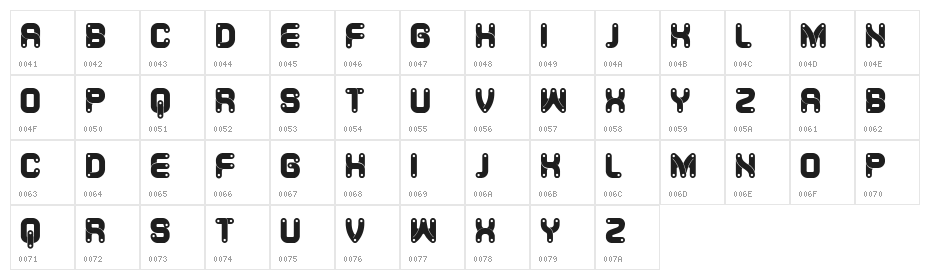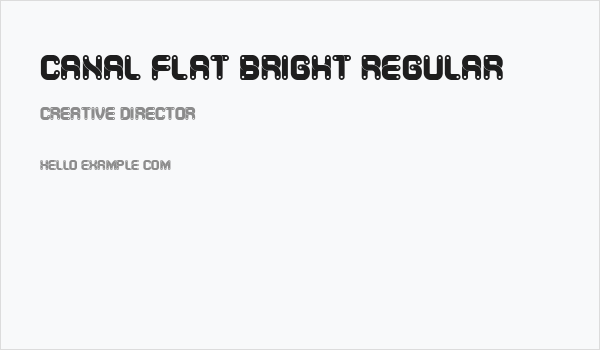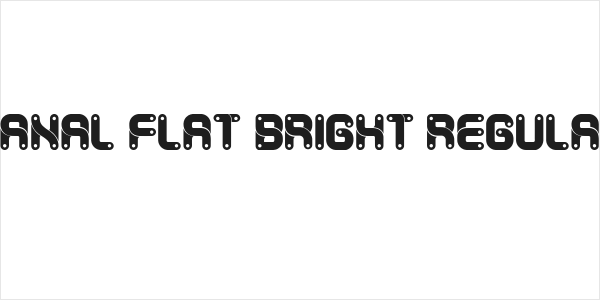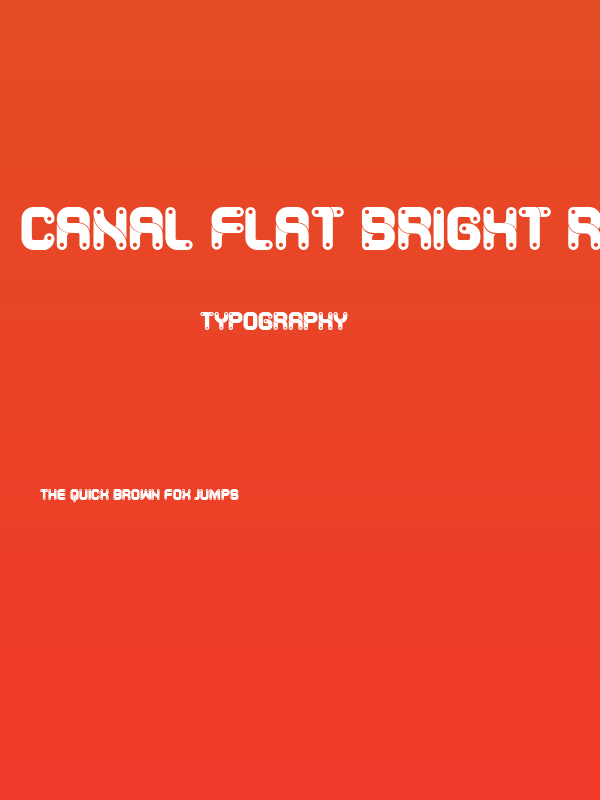
Canal Flat Bright Regular Font
Canal Flat Bright Regular Description
This font features a unique and bold design with a mechanical and industrial aesthetic. Each character is constructed with a series of flat, interconnected segments, giving it a distinctive, modular appearance. The rounded corners and consistent circular cutouts within the letters add a playful yet structured feel. The font's geometric nature and uniformity make it stand out, while the boldness ensures high visibility and impact. It is well-suited for creative projects that require a modern and edgy look, such as branding for tech companies, futuristic designs, or artistic posters.
| Proposed Projects | Ideal for tech branding, futuristic designs, artistic posters, and creative displays. |